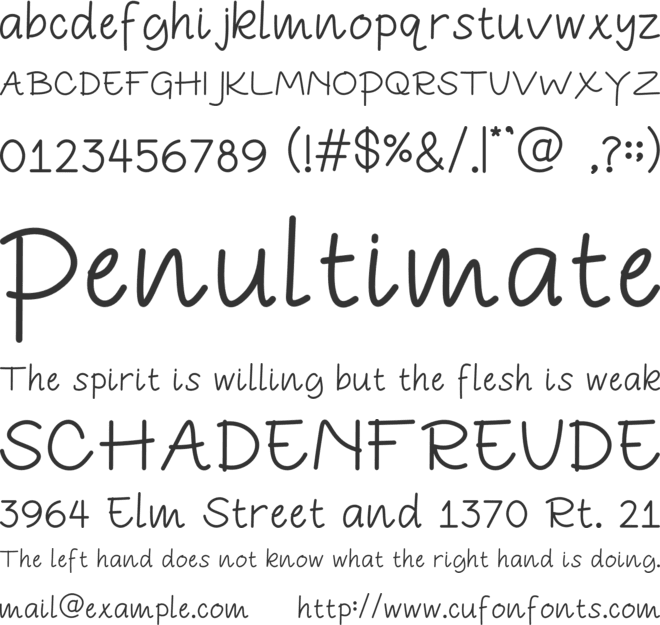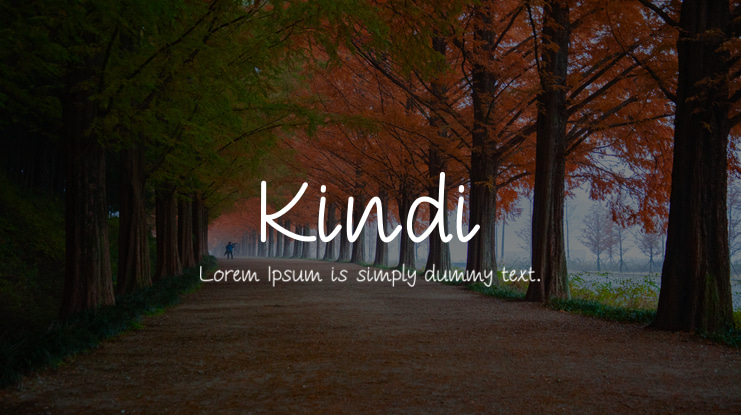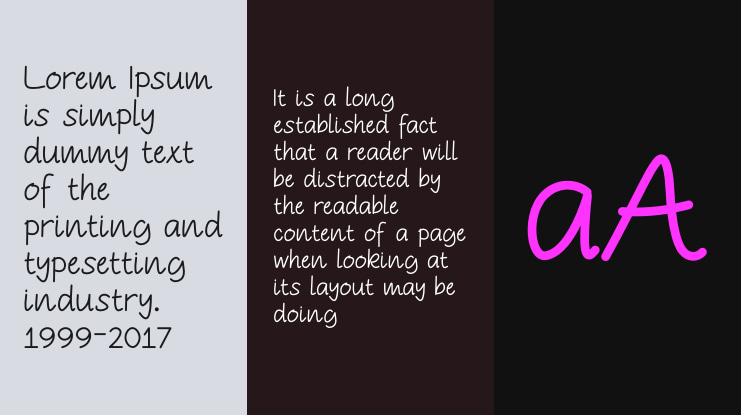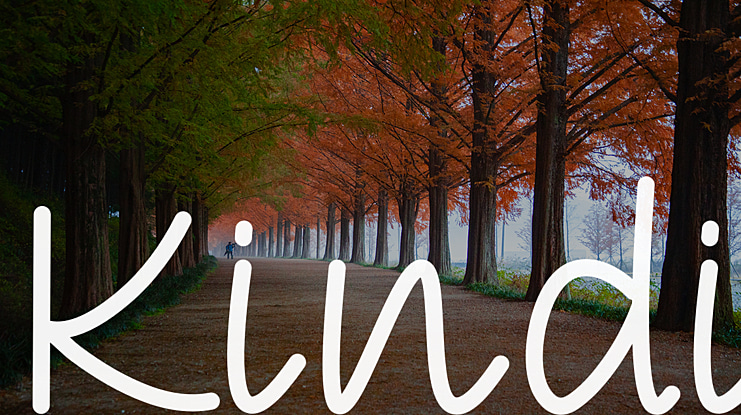
Kindi Font
Kindi is an elegant and friendly handwritten font and can be used for various purposes. No matter the topic, this font will be an incredibly asset to your fonts’ library, as it has the potential to elevate any creation.
Muhammad Nashrul Aziz